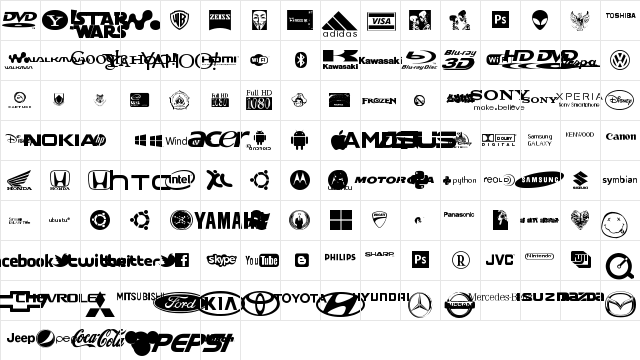
sanz-Di'nbats Regular
| Designer | 'Sanz d clouds |
Design Context for sanz-Di'nbats Typeface
sanz-Di'nbats is a composed and adaptable typeface that performs quietly and consistently across a wide range of design contexts.
Pro Tip: Use sanz-Di'nbats in both headline and body roles to test its range before committing to a single application.